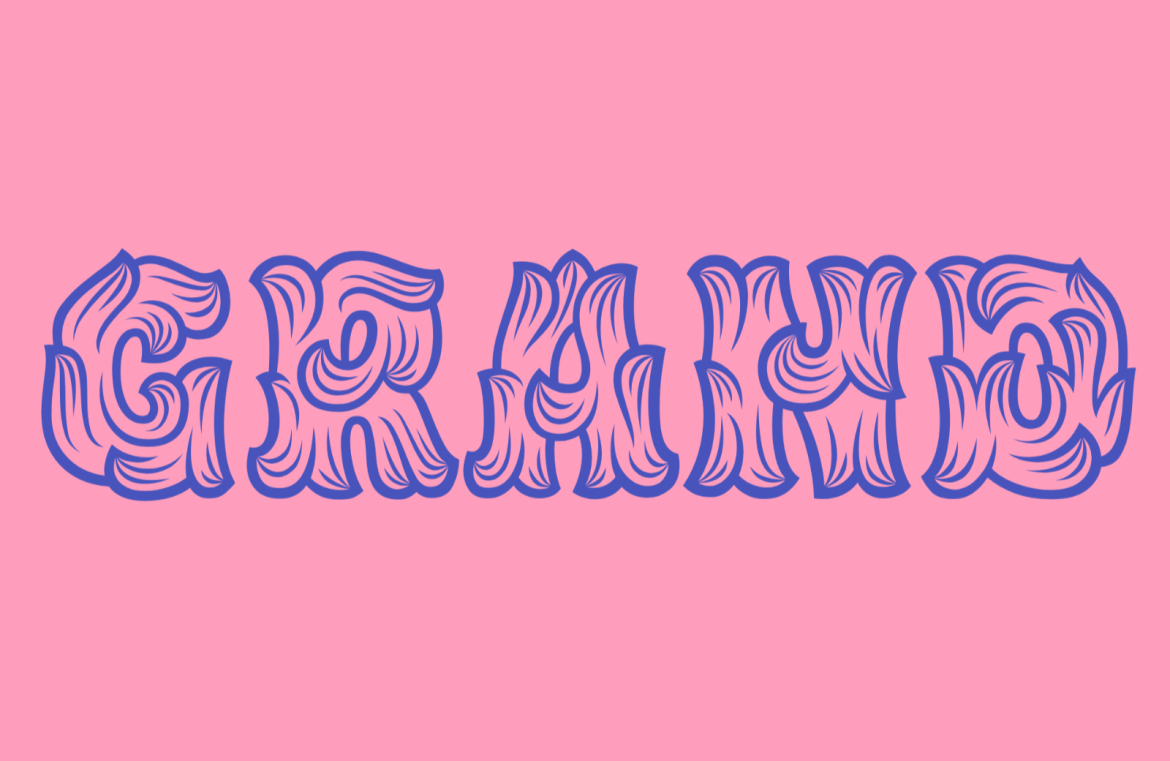
Deciding to get a tattoo means embracing art that becomes a permanent part of you. With the possibility of removal being distant and, frankly, often not pursued, choosing a tattoo involves making sure you’ll be content with it indefinitely.
The choice of font in your tattoo is crucial, especially for text that encapsulates a belief, a personal mantra, or someone’s name. For instance, a whimsical script like Comic Sans might not hold its humorous appeal forever, especially with something as bold as “Meat is Murder” emblazoned in it.
Sifting through the sea of fonts available, it’s important to select one that stand the test of time on your skin.
Font Selection Tips for Tattoos
For tattoos, it’s best to pick fonts that transition well into the freehand skill of tattoo artists. Organic styles like Blackletter and cursive are forgiving for slight skin irregularities, while precise geometric fonts might prove challenging on the body’s curves and as the skin changes over time.
Consider these factors for font selection:
Text design: Think about the actual content you’re planning to ink. For instance, a font that emphasizes a stylish ‘g’ is irrelevant if your intended text is “Jessica.”
Ink placement: Skin varies across the body—in thickness, exposure, and stretching over time. Detail-heavy designs may blur or require future touch-ups.
Design orientation: Take into account the angle at which the tattoo will be viewed. An arm tattoo looks different when your arm is raised versus at your side.
Design size: Large or small, the design has to be manageable for the artist. Details on a micro tattoo might not last as well as bold, simplistic fonts.
Font treatment: Will your tattoo have shading, outline, or color? Not all fonts lend themselves well to every style.
When in doubt, consult your tattoo artist! Their expertise can guide you through what will heal and age gracefully and they may even craft a unique font based on your preference. Lettering specialists can be especially helpful here.
25 Tattoo Font Inspirations
Diversa
Hobeaux Rococeaux
Beastly
Klimax
Macula
Ravals
Digestive
Carlyle Quaint
Torio
Blaktur
Plotter Display
Cheee
Matrix II
Elaine Fleurer
Barb
Arc
Cortado
Modak
CSTM Xprmntl 01
Quase Poster
Maelstrom
Givry
Jules Epic
Jornada Blackletter
Und